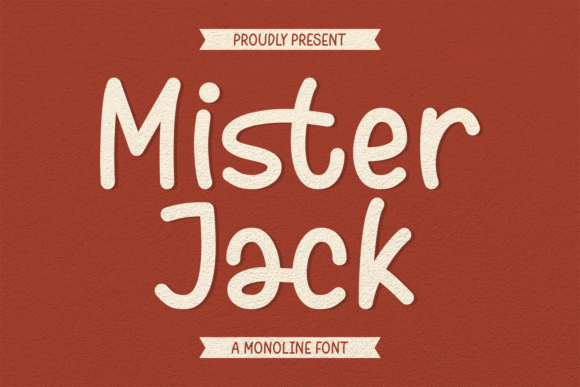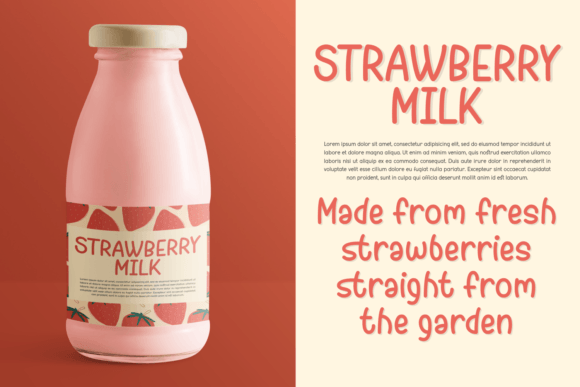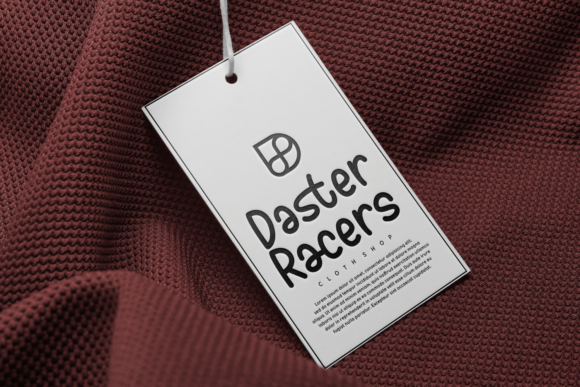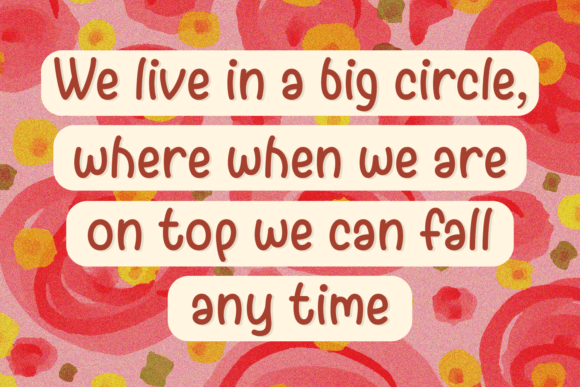
About Mister Jack Font
Mister Jack is a simple handwritten font with thin lines and a whimsical touch that’s ideal for designs with a childlike feel. You can use it for birthday cards, quotes, packaging, apparel, school projects, websites, and more.